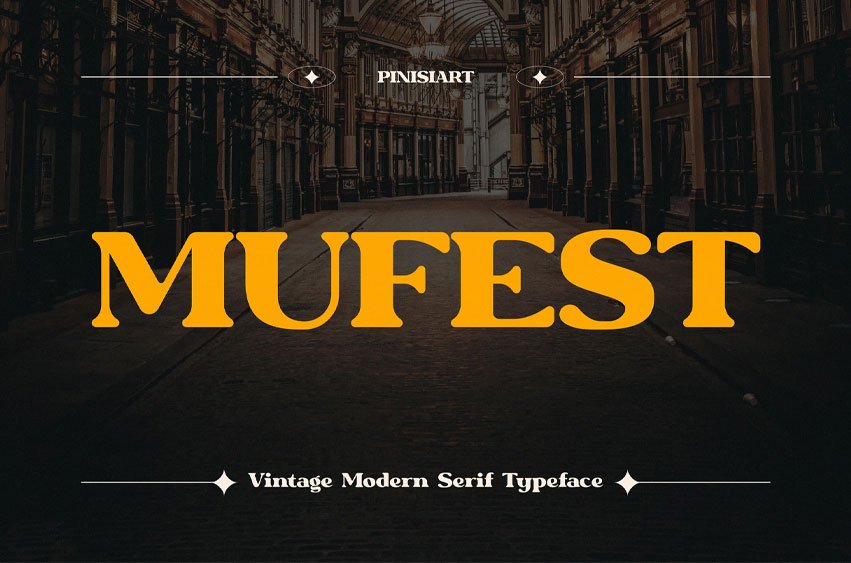
Mufest Font is a vintage modern serif typeface that blends bold letterforms with refined Victorian-inspired elegance. Its strong contrast, sharp serifs, and well-balanced proportions make it ideal for projects where heritage meets modern storytelling. With its expressive presence, MUFEST instantly elevates branding, editorials, and visual campaigns with a touch of timeless sophistication.
Designed for brand storytelling, editorial design, and luxury packaging, MUFEST delivers both authority and beauty. It’s the typeface that captures attention on magazine covers, movie posters, and exhibition titles while remaining versatile enough for social media graphics, book covers, and lifestyle branding. Whether you want a bold headline or a refined brand identity, MUFEST ensures your message resonates.
Key Features :
- Distinct Victorian-inspired serif shapes with modern proportions
- Perfect balance of boldness and elegance for display use
- Highly versatile for editorials, posters, packaging, and branding
- Strong legibility with stylish details that enhance storytelling
- Works across both digital and print media